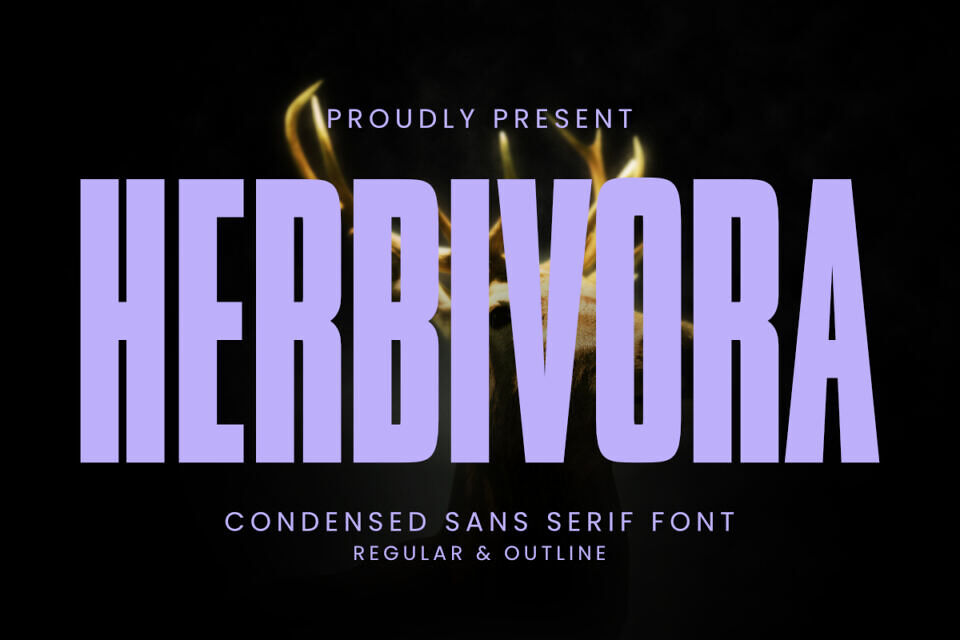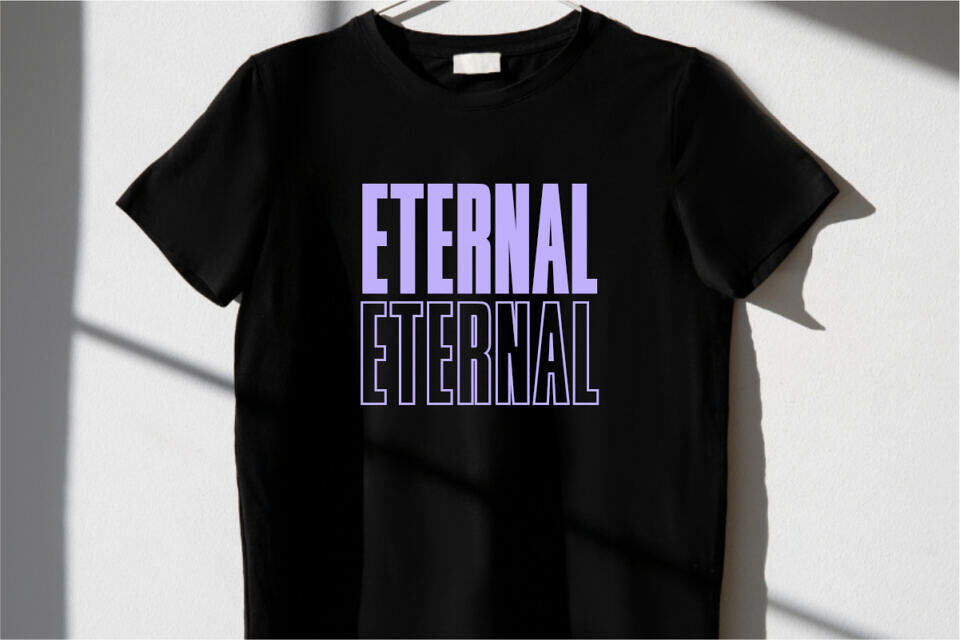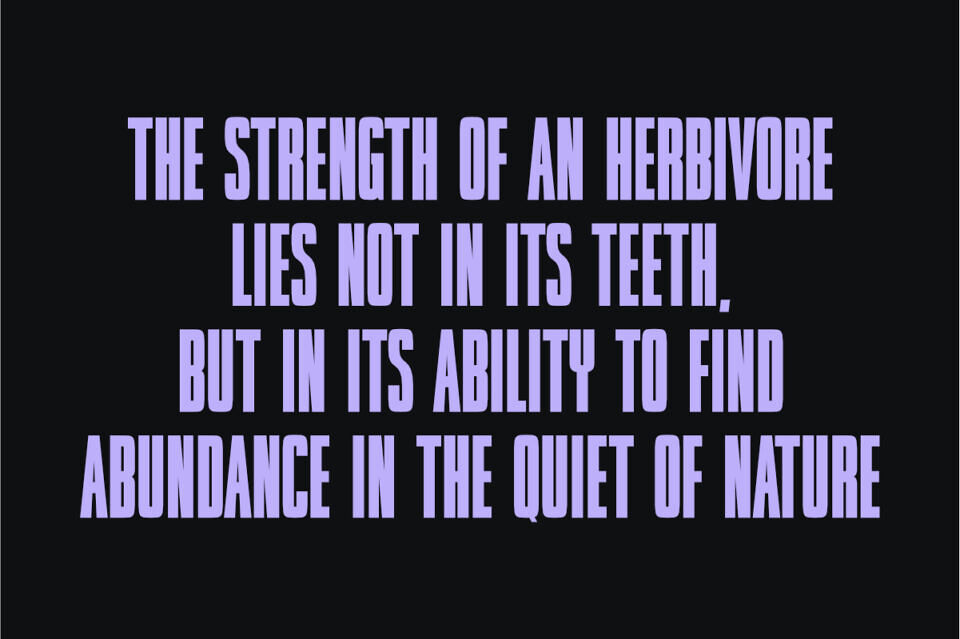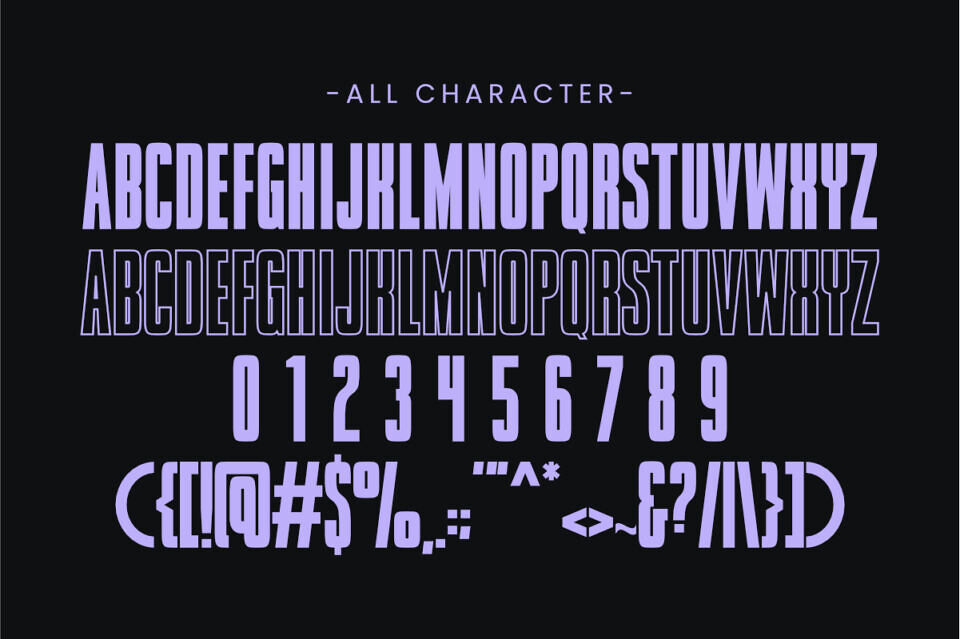
Enter the realm of “Herbivora”, the epitome of ultramodern condensed sans serif typography. Exuding an avant-garde class with its slender, chic style, Herbivora seamlessly enhances a myriad of creative mediums, from graphic artistry to street couture to trendsetting apparel. Possessing an intrinsic versatility, Herbivora excels in the world of print-on-demand, sublimation methods, and an expansive sphere of creative endeavor.
This unique typeface lends a vivacious pulse to energetic logos and cutting-edge branding elements, empowering your designs to make a robust impression. Embrace the limitless potential that Herbivora infuses in your toolkit of creativity.